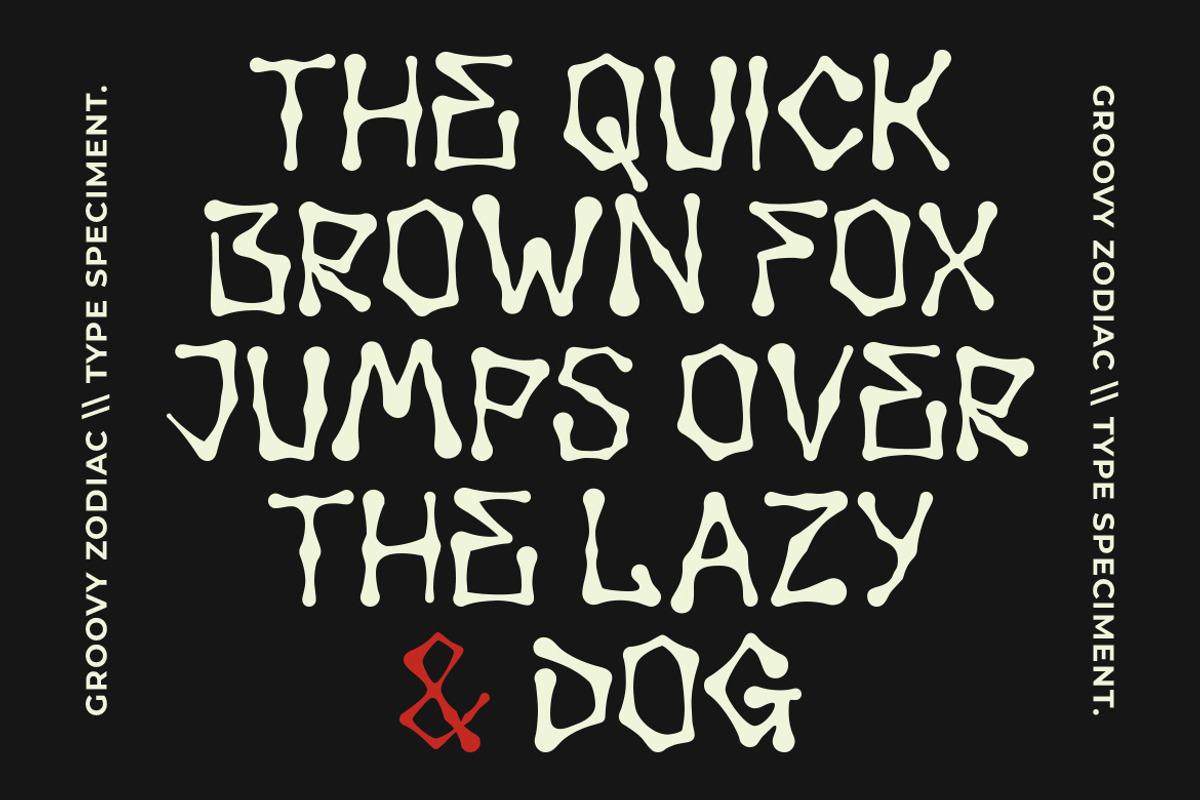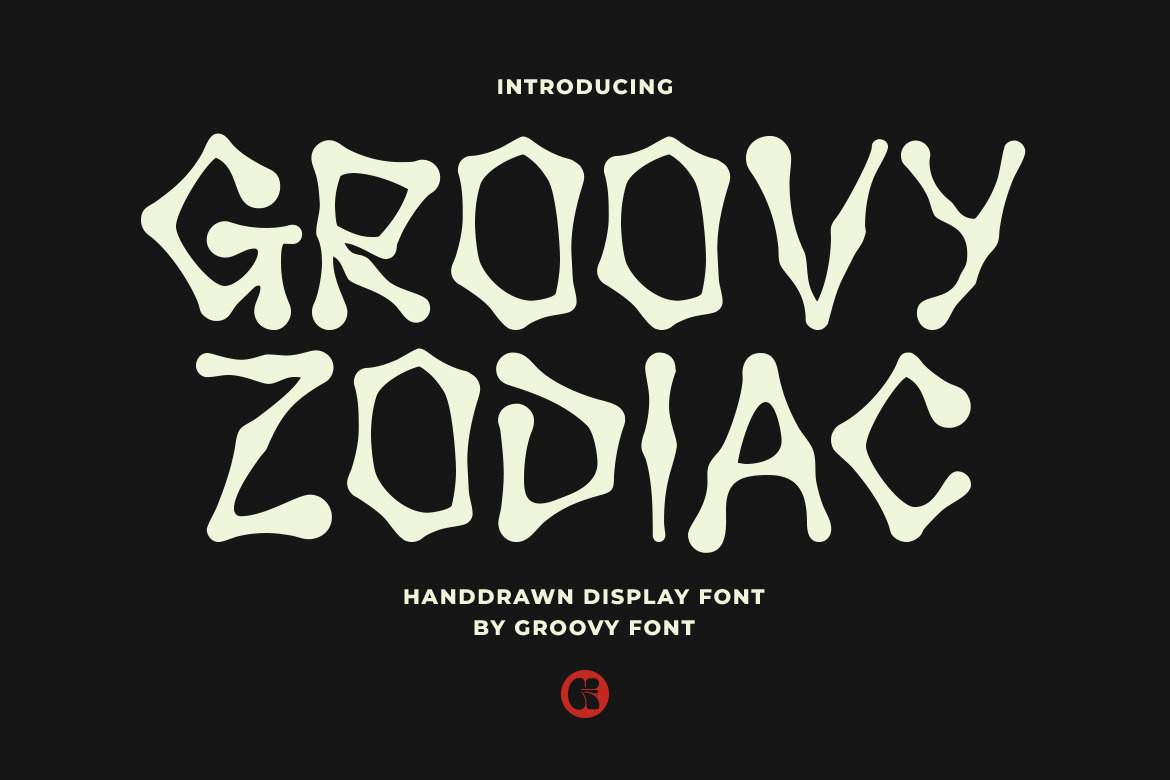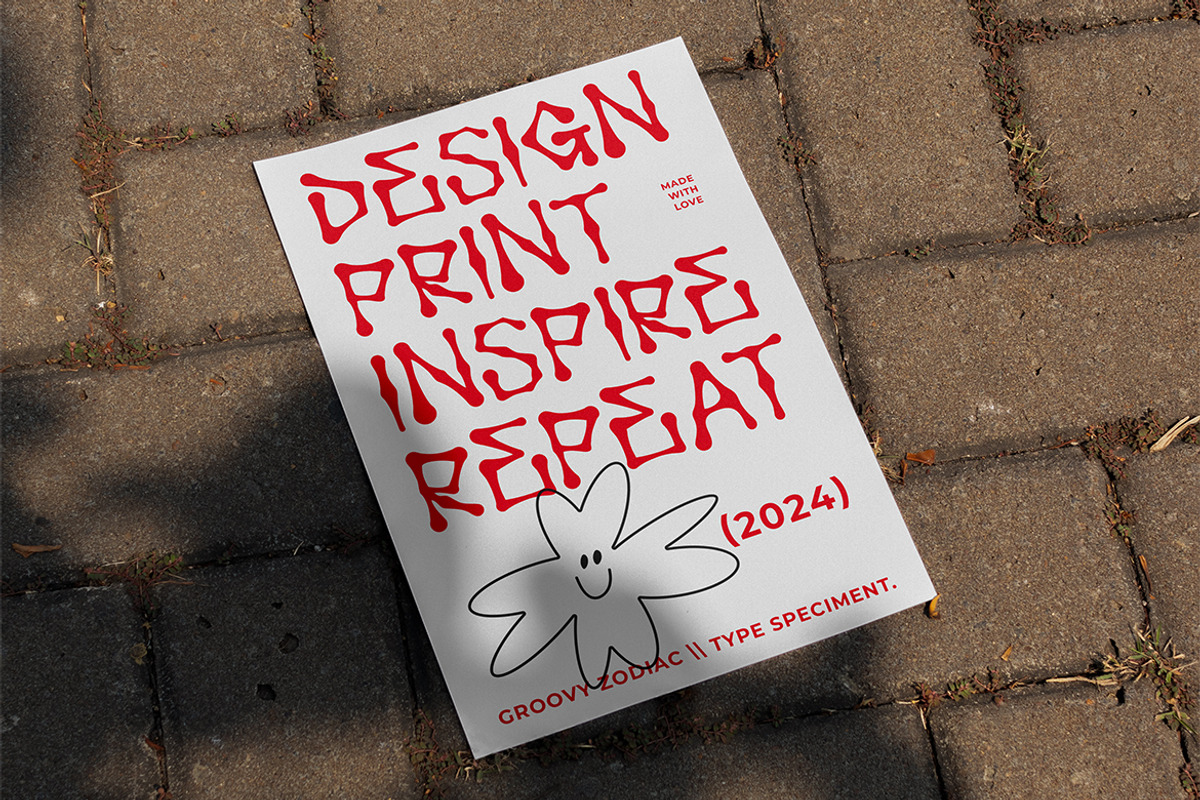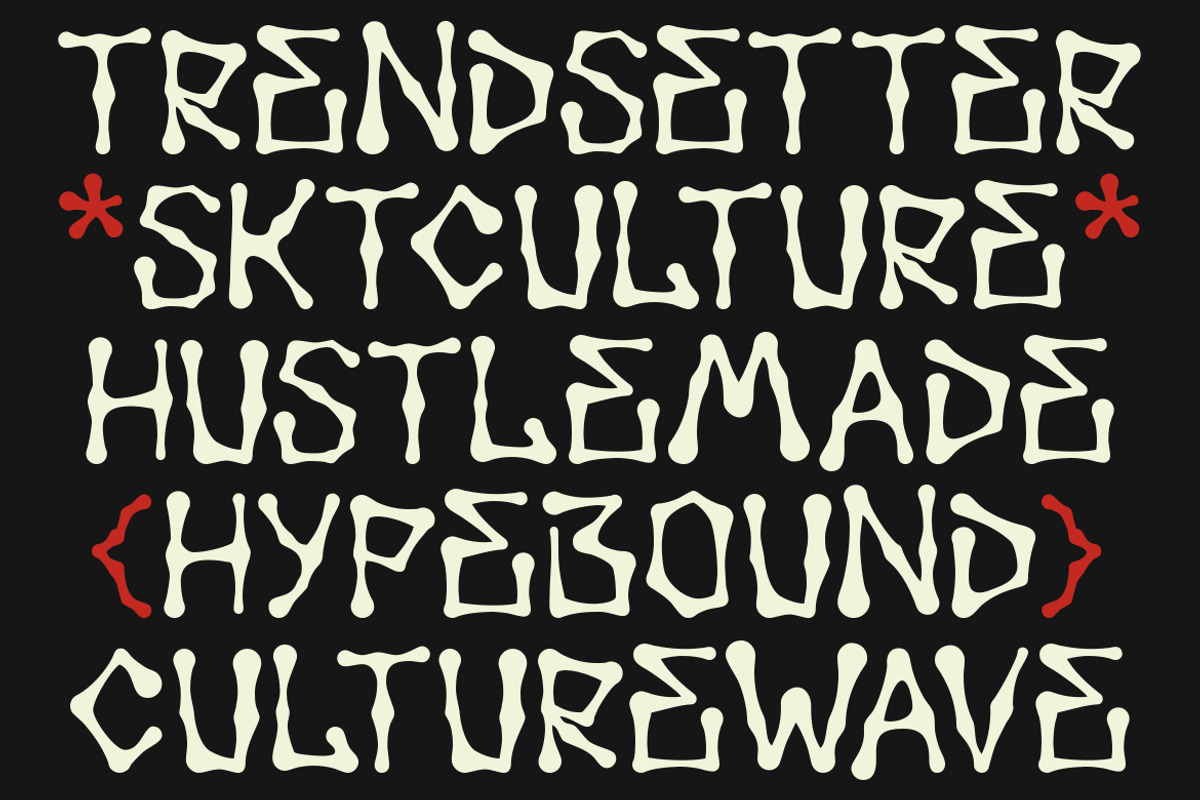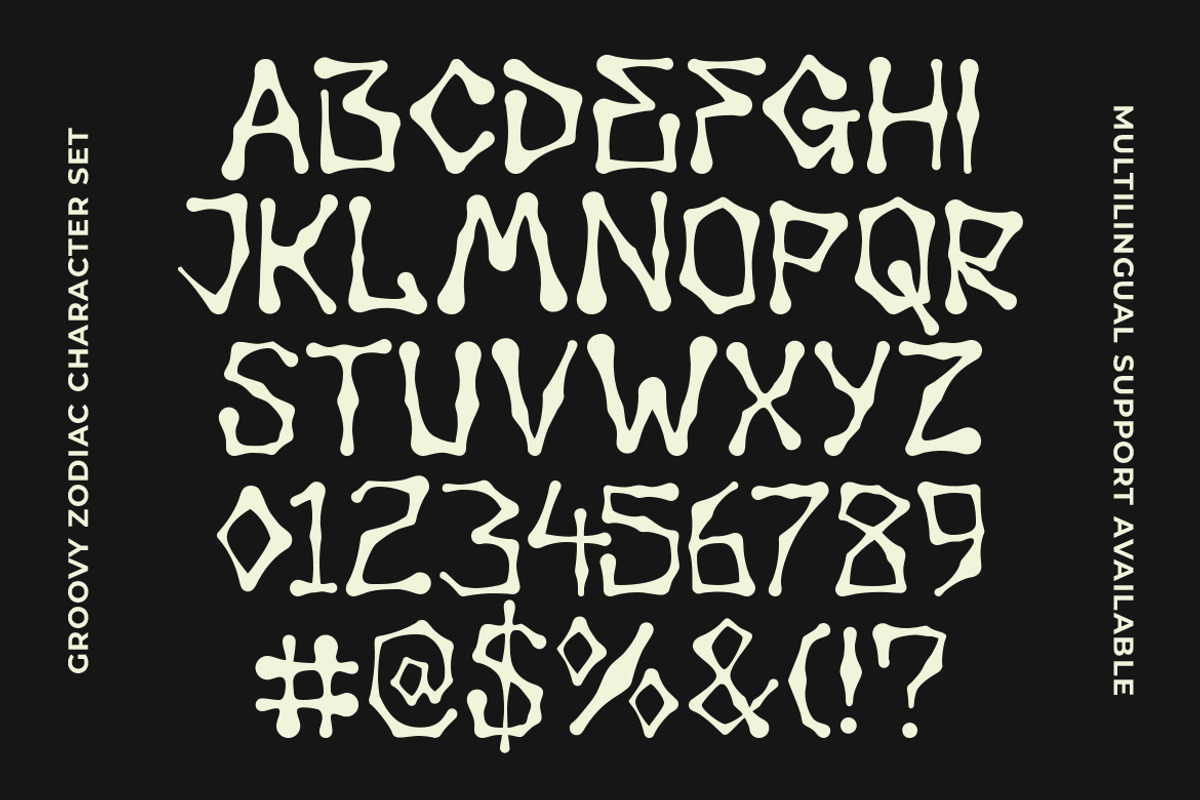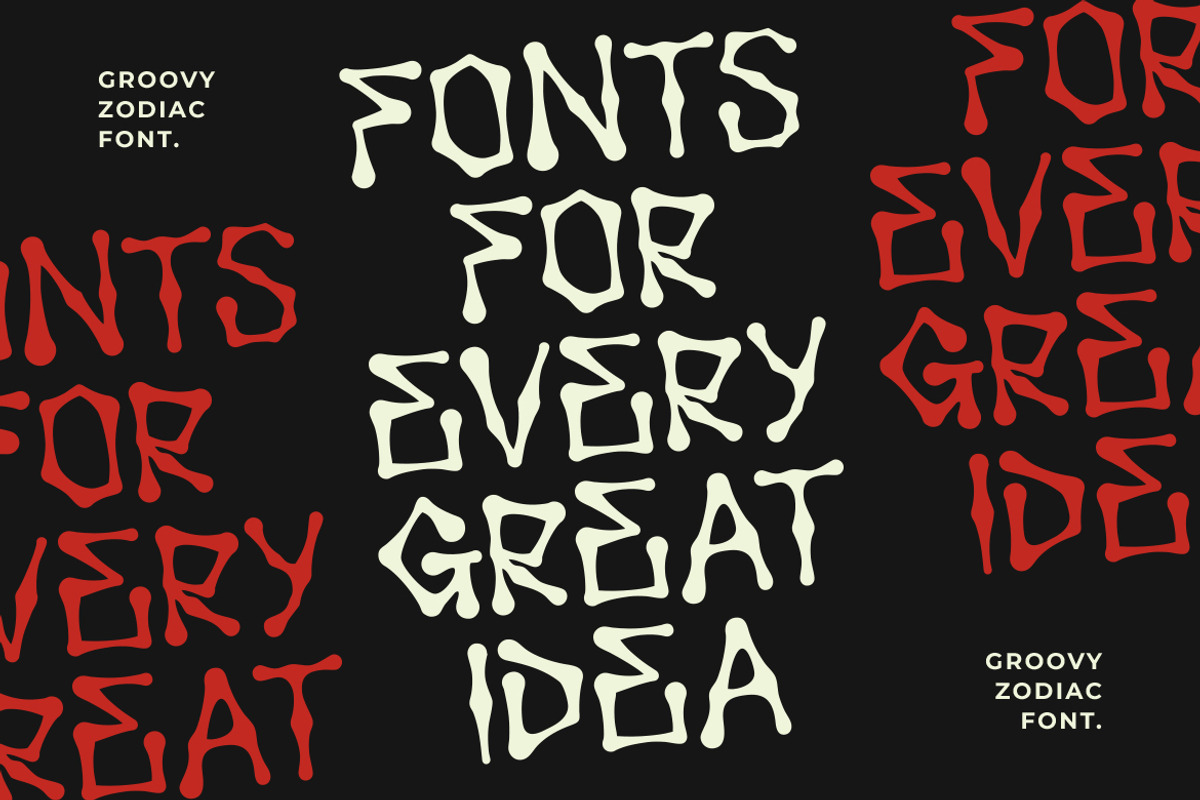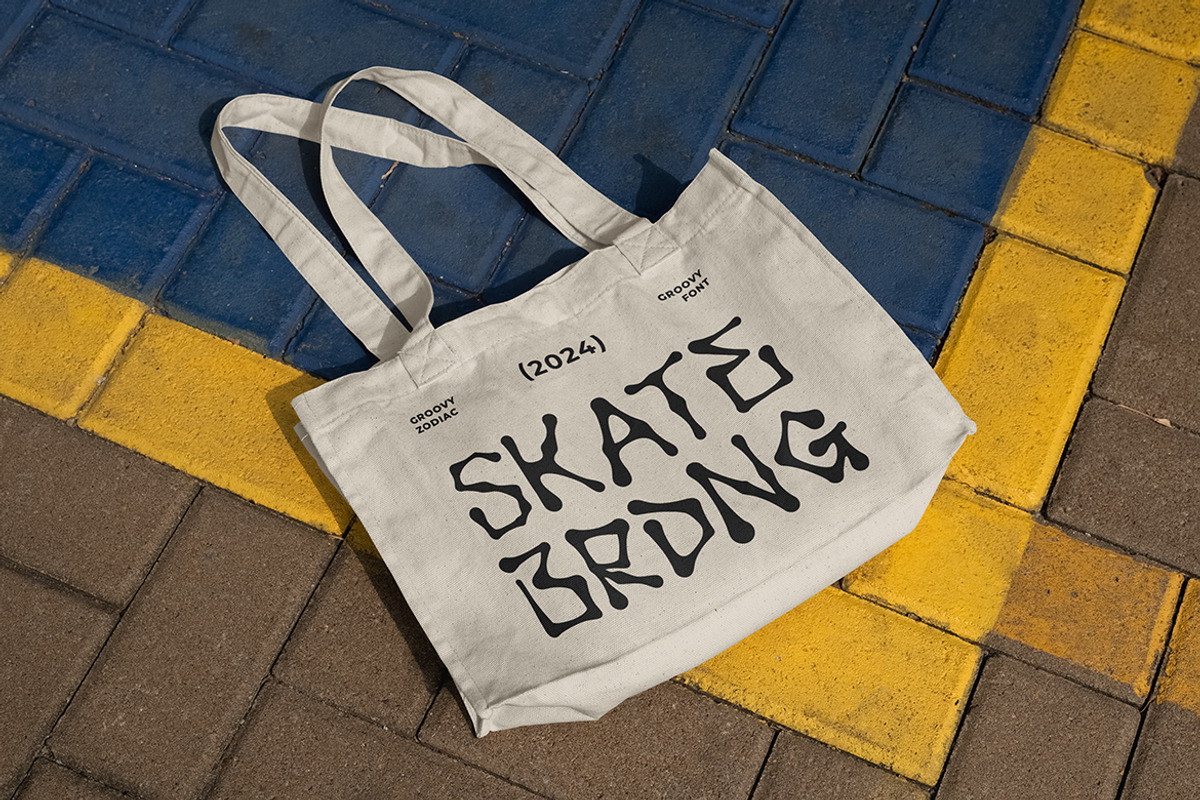
GF Zodiac - Display Font
Groovy Zodiac is a hand-drawn display font crafted to mimic the appearance of bones.
This unique font is versatile and can be used for various design purposes such as creating Halloween-themed posters, spooky party invitations, horror movie titles, gothic-themed graphics, or any project that requires a macabre and intriguing touch.
Its handcrafted and eerie aesthetic can add a distinctive and memorable element to a wide range of design projects.